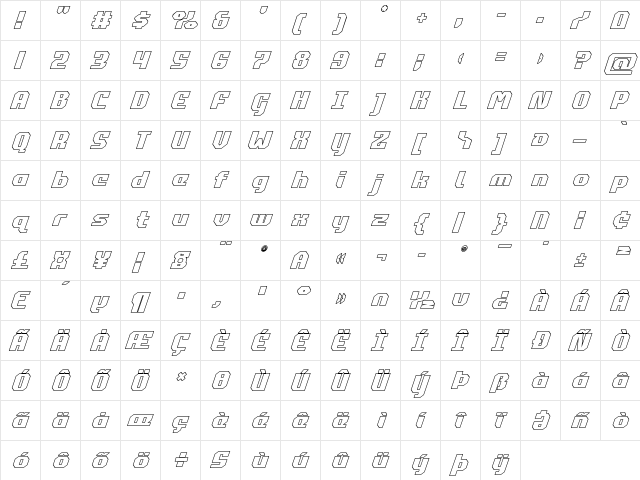
Commonwealth Outline Italic Outline Italic
Design Context for Commonwealth Outline Italic Typeface
Commonwealth Outline Italic is built around its visual character rather than neutral utility — its distinctive forms are designed to make an impression at display sizes. Its italic angle brings a sense of urgency and motion to the letterforms.
Font Pairing: Pair with a clean neutral sans-serif for body copy to let Commonwealth Outline Italic's character lead without overwhelming the composition.
Pro Tip: Use Commonwealth Outline Italic exclusively at display sizes — it was designed to be seen, not read at length. Let a neutral companion handle body copy.